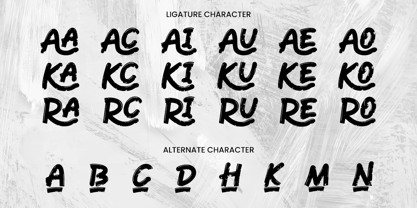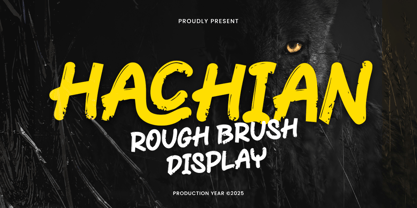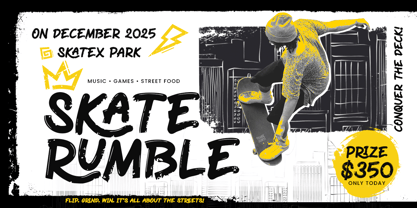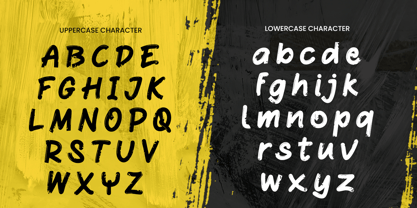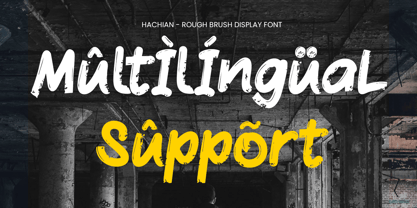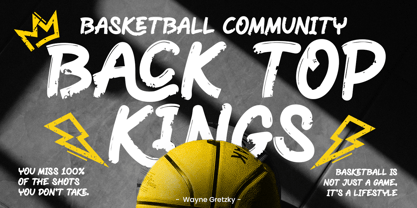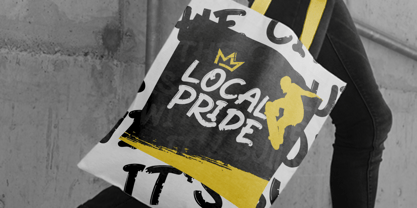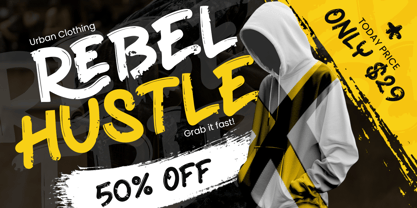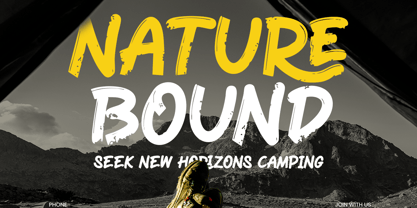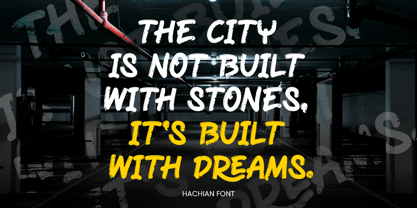
Hachian
von Sensatype Studio
Die Schriftfamilie Hachian wurde von Zamroni Hamzah entworfen und von Sensatype Studio veröffentlicht. Hachian enthält 1 Stile. Mehr über diese Familie
HACHIAN is a rough brush display font crafted to deliver raw energy, expressive movement, and handcrafted personality. Built with textured brush strokes and an authentic hand-painted aesthetic, this font brings a bold and rebellious character that instantly stands out. Perfect for designers seeking a rough brush display font with strong visual impact and artistic attitude.
Designed for eye-catching branding, posters, album covers, packaging, social media graphics, streetwear branding, and impactful headlines, HACHIAN transforms ordinary layouts into attention-grabbing compositions. Its rugged brush texture makes it especially effective for music promotions, urban campaigns, creative merchandise, advertising, and bold digital visuals.
Whether you're creating edgy branding, dynamic promotional artwork, expressive typography, or modern street-inspired graphics, HACHIAN delivers authentic handcrafted energy with excellent display presence. This bold brush typeface is a versatile creative tool for projects that need movement, emotion, and unmistakable personality.
HACHIAN – Rough Brush Features
• Authentic rough brush character set with handcrafted texture
• Bold expressive letterforms for impactful display typography
• Perfect for posters, branding, album covers, and merchandise
• Great for streetwear, urban campaigns, social media, and advertising
• Includes uppercase, lowercase, numerals, and punctuation
• OpenType features for creative typographic flexibility
• Excellent for both digital and print design projects
Multilingual Support
Bring fearless handcrafted energy to your next design with HACHIAN – built for bold creative expression. 🖌️
Designer: Zamroni Hamzah
Foundry: Sensatype Studio